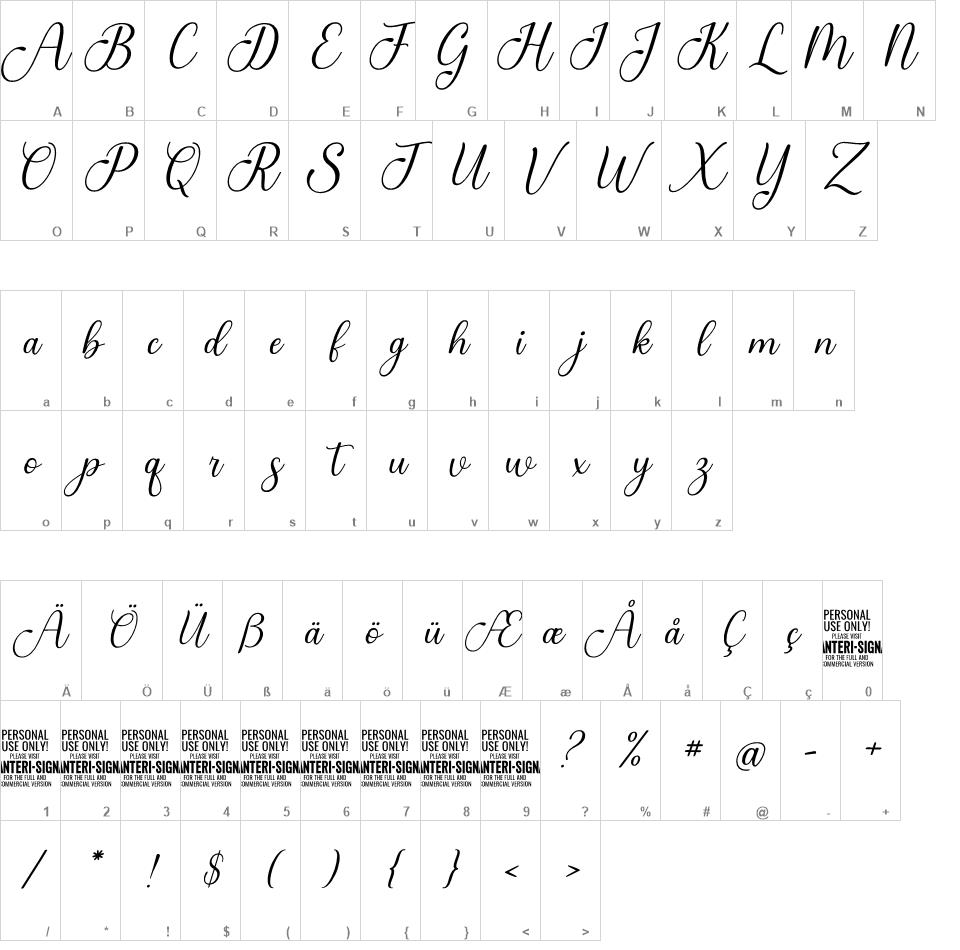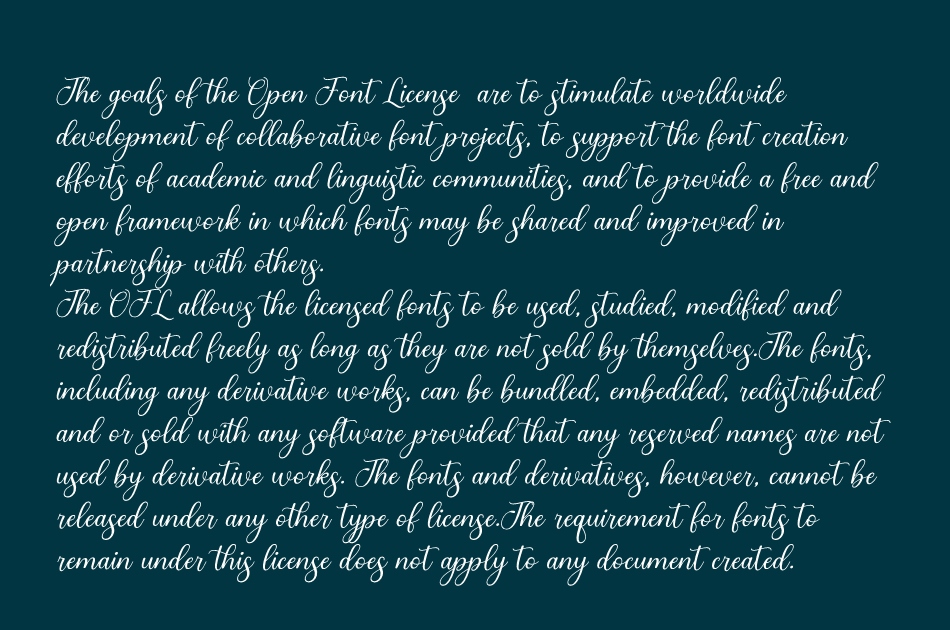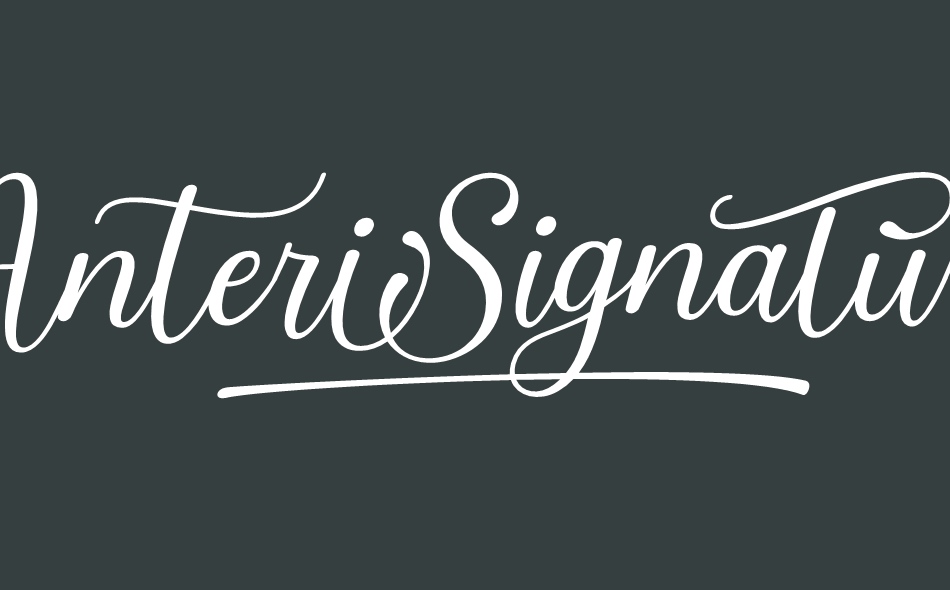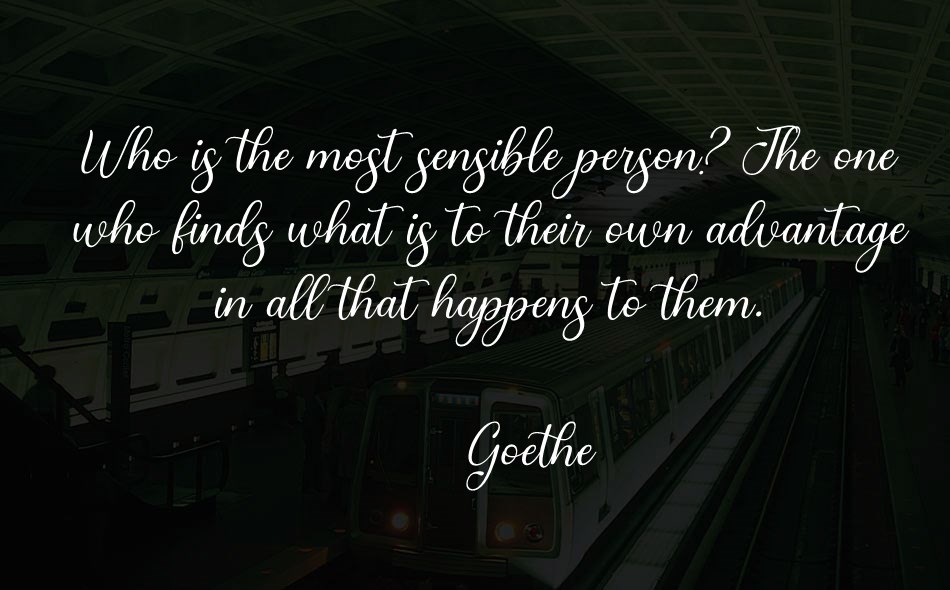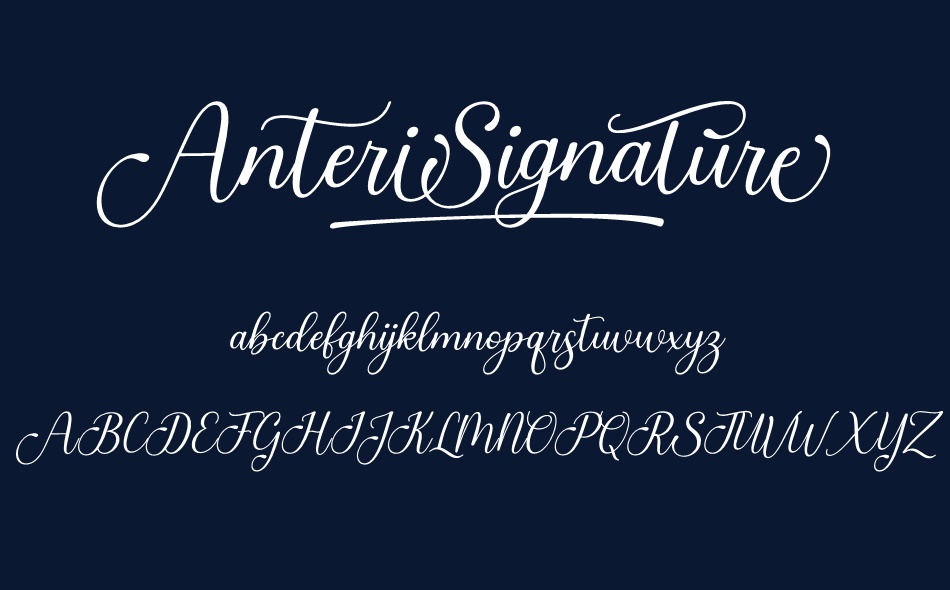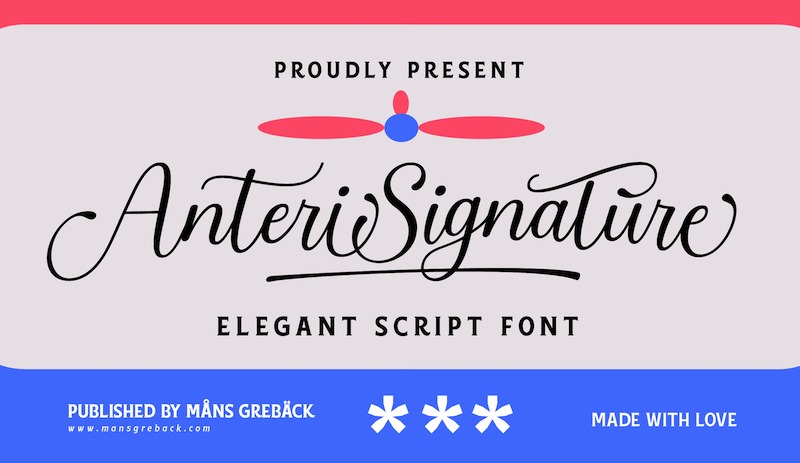
Anteri Signature font
Use underscore _ anywhere in a word to make a swash.
Example: Love_letter
Use multiple underscores to make longer underlines.
Use % at the end of any word to make a swash letter.
Example: Scrap__book%
Write # before or after any word to make a tail letter.
Example: #cuteness#
Anteri Signature is a beautifully crafted handwriting font that exudes a cute and feminine charm. With its cursive calligraphy style, this font brings a delightful touch to your creative projects, making them feel personal and inviting.
Ideal for personal branding, stationery, greeting cards, and social media posts, Anteri Signature is a versatile font that adds a heartwarming and elegant touch to your designs. The font is characterized by its swash alternates, allowing you to create a truly customized and unique typographical experience.
Use underscore _ anywhere in a word to make a swash. Example: Love_letter
Features available when downloaded: Use multiple underscores to make longer underlines. Use % at the end of any word to make a swash letter. Example: Scrap__book%
Write # before or after any word to make a tail letter. Example: #cuteness#
The Anteri Signature font family includes four high-quality styles to suit various design needs:
Regular: The perfect balance of elegance and playfulness Bold: A stronger, more assertive presence for impactful designs Italic: Adds a touch of whimsy and flair to your text Bold Italic: Combines the assertiveness of bold with the expressive nature of italic Built with advanced OpenType functionality, Anteri Signature ensures top-notch quality and provides you with full control and customizability. It includes stylistic alternates, ligatures, and other features to make your designs truly unique.
The font is built with advanced OpenType functionality and has a guaranteed top-notch quality, containing stylistic and contextual alternates, ligatures and more features; all to give you full control and customizability. It has extensive lingual support, covering all Latin-based languages, from Northern Europe to South Africa, from America to South-East Asia. It contains all characters and symbols you'll ever need, including all punctuation and numbers.